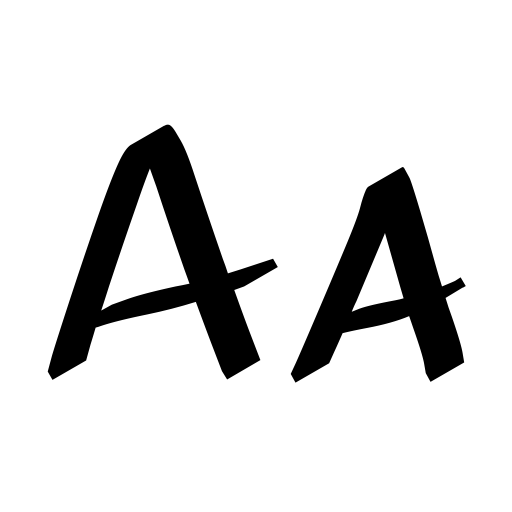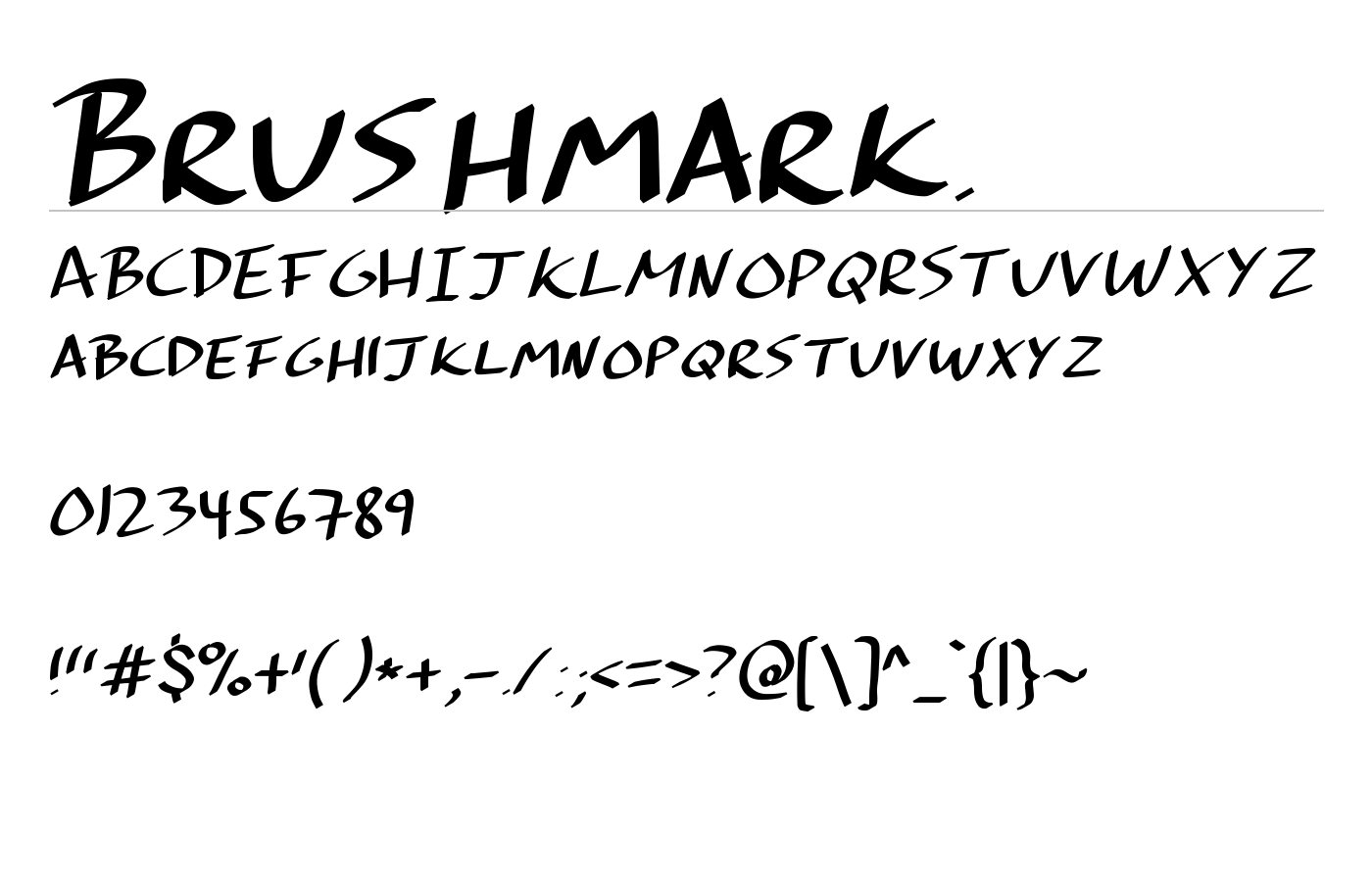
Brushmark is a lively, brush-script style font with a casual and dynamic feel, characterized by its varied stroke widths and slightly angled letterforms. Its hand-painted look with informal, energetic strokes makes it perfect for creative, playful, and personal branding or expressive headlines that need a warm, human touch. This font works especially well in logos, posters, or packaging where a friendly and artistic vibe is desired.
Brushmark. Font
About Brushmark. Font